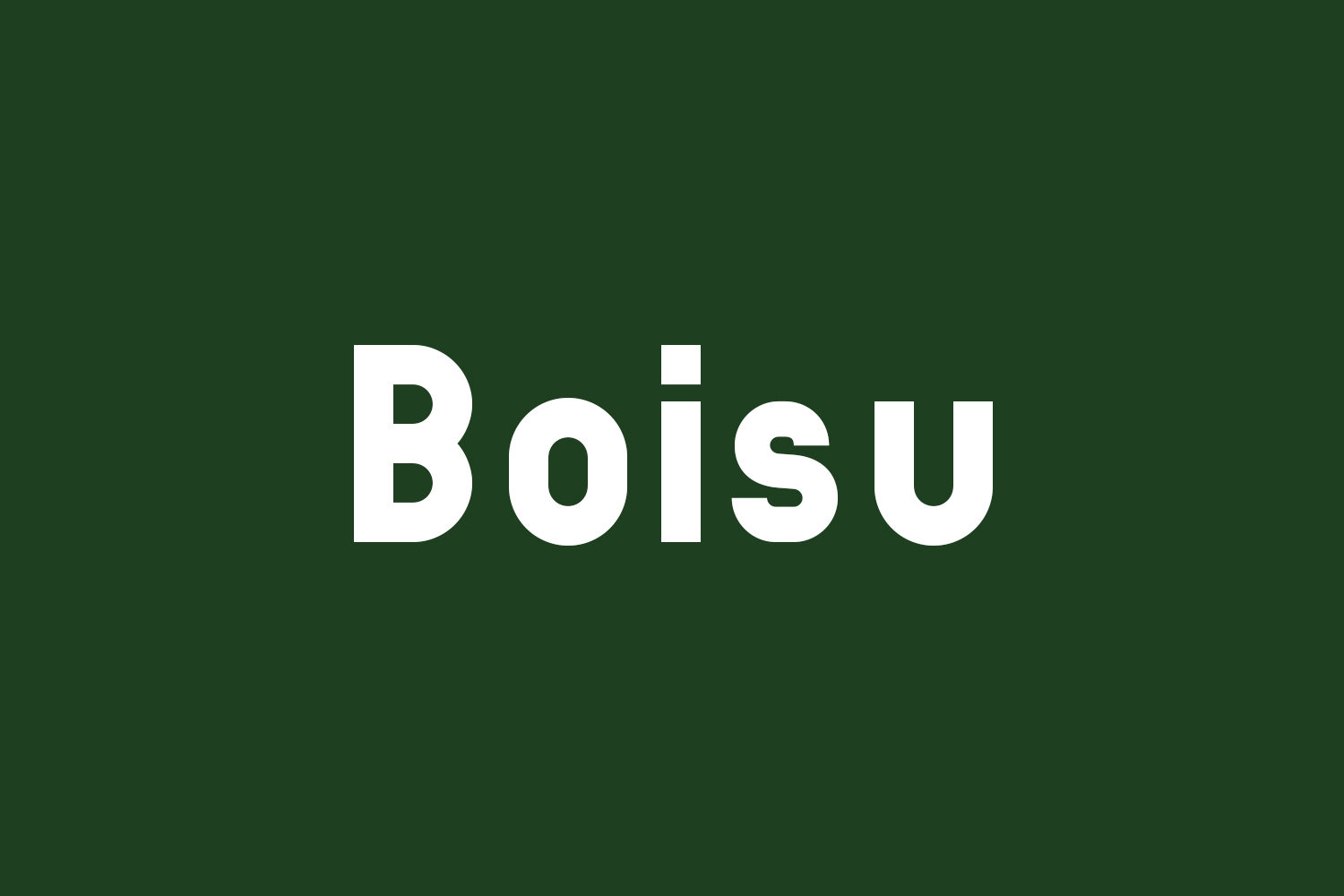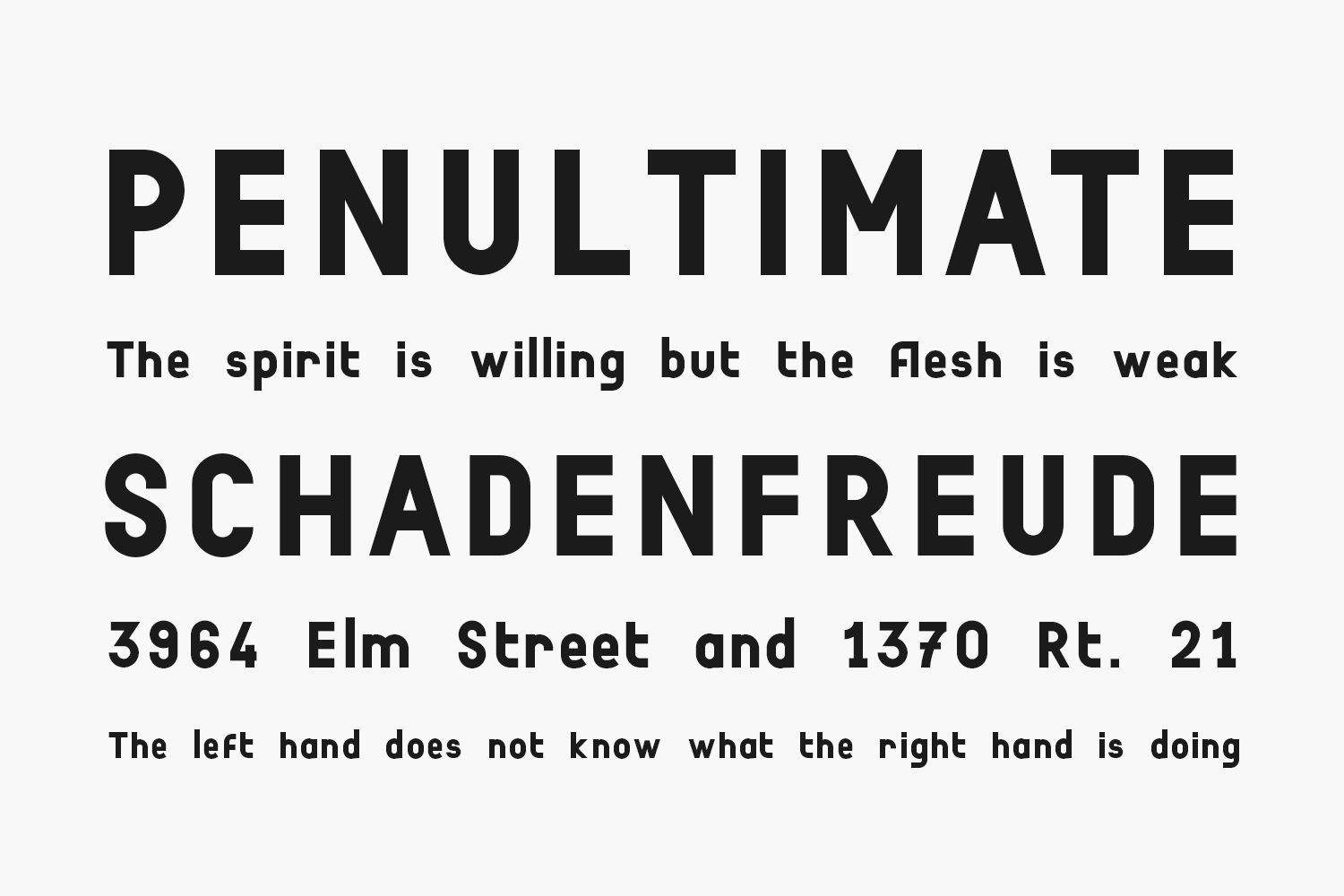
Boisu Free Font is a free industrial typography of 401 glyphs and 3 styles: Stroke, Fill & Full. Localization western, central and south-eastern Europe as well as Pinyin. Proportional and tabular figures.